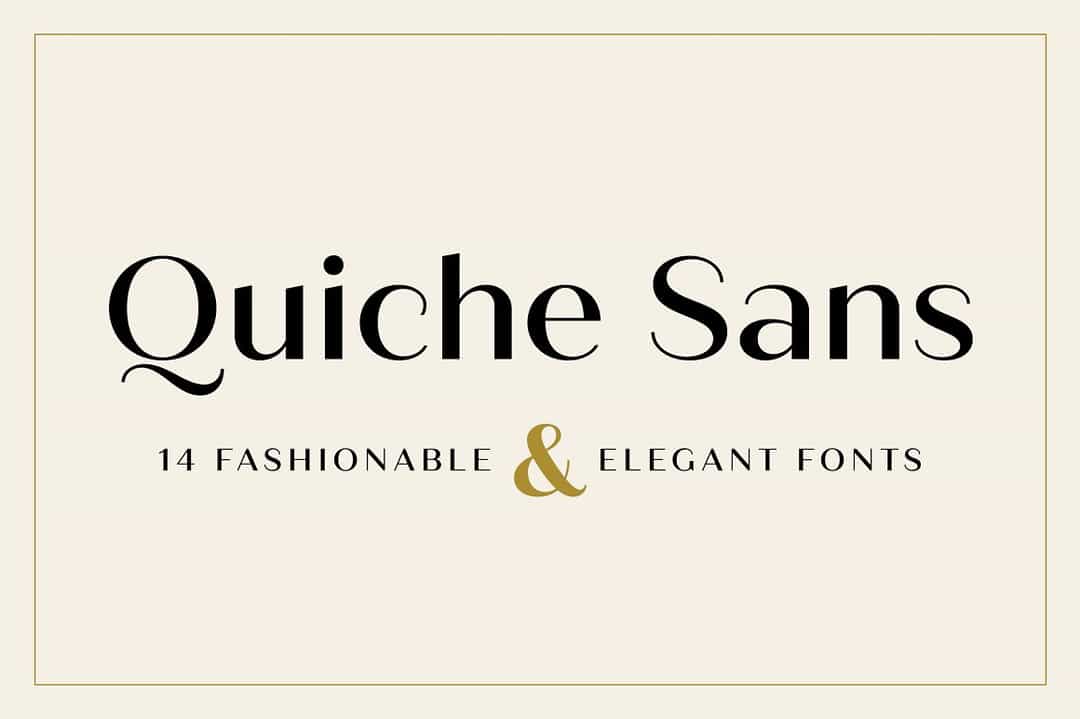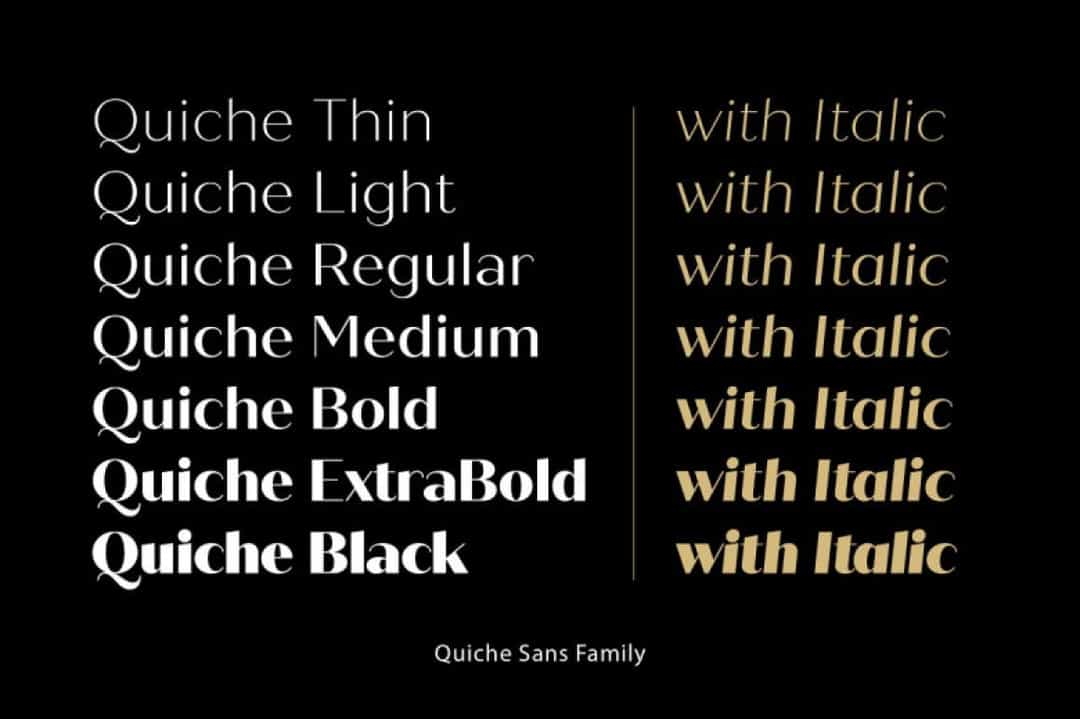
Quiche Sans Font Family is a high contrast sans serif font featuring uniline stroke endings and an angled stem, similar to its sister Quiche family but without ball terminal endings. There are multiple weight options ranging from thin to black along with matching italics that make this font ideal for printing websites, advertising magazines, product packaging labels etc.